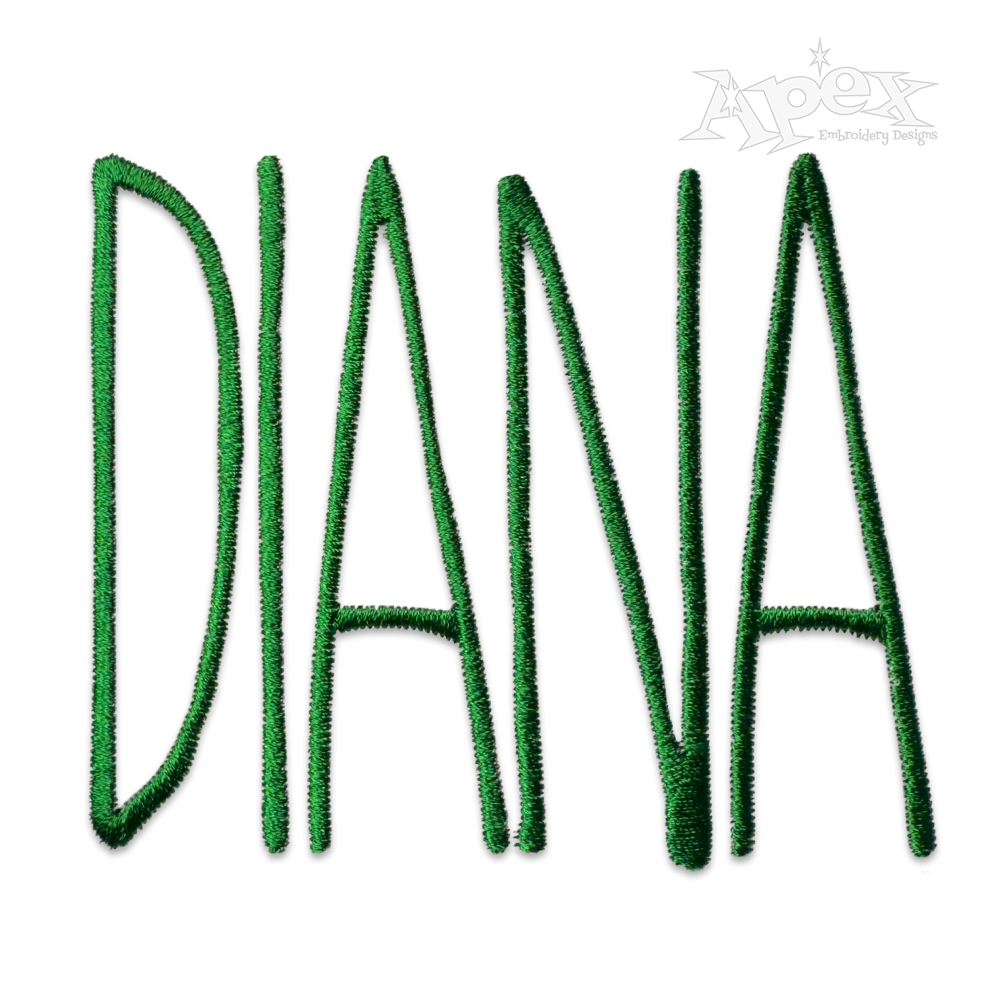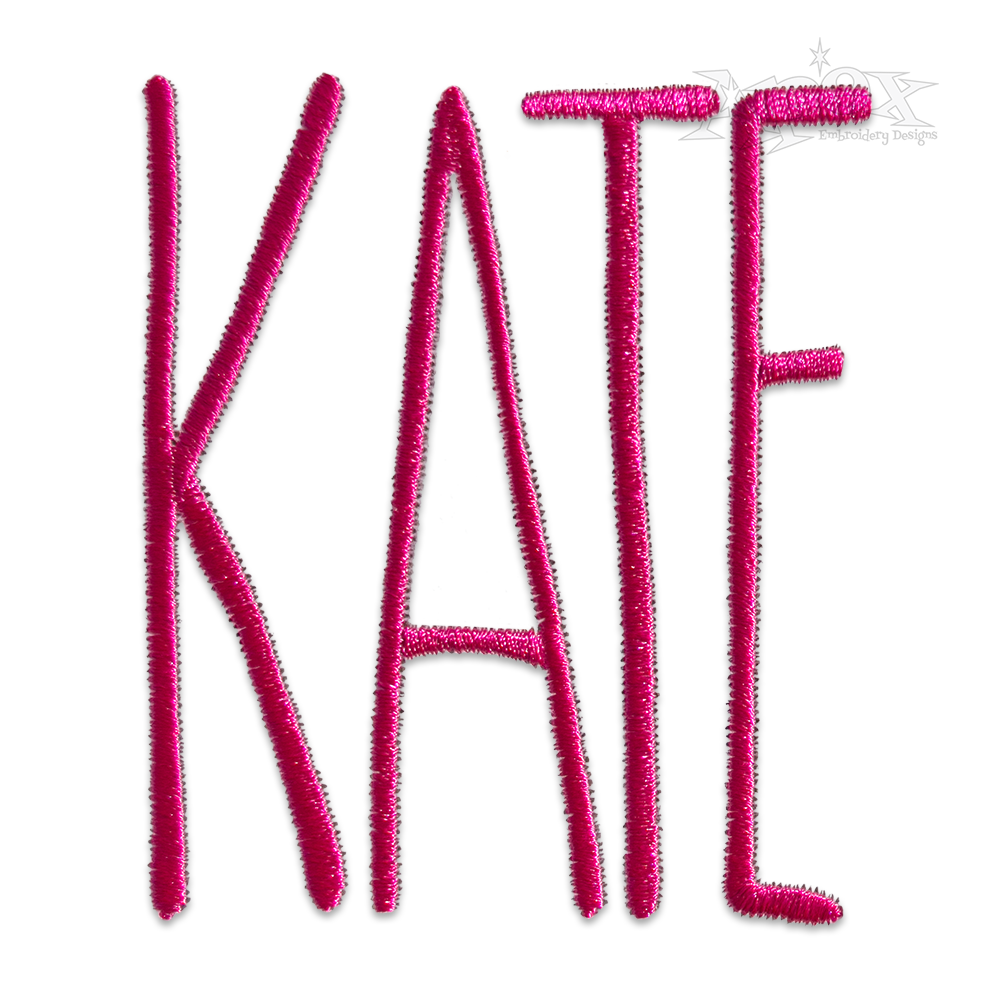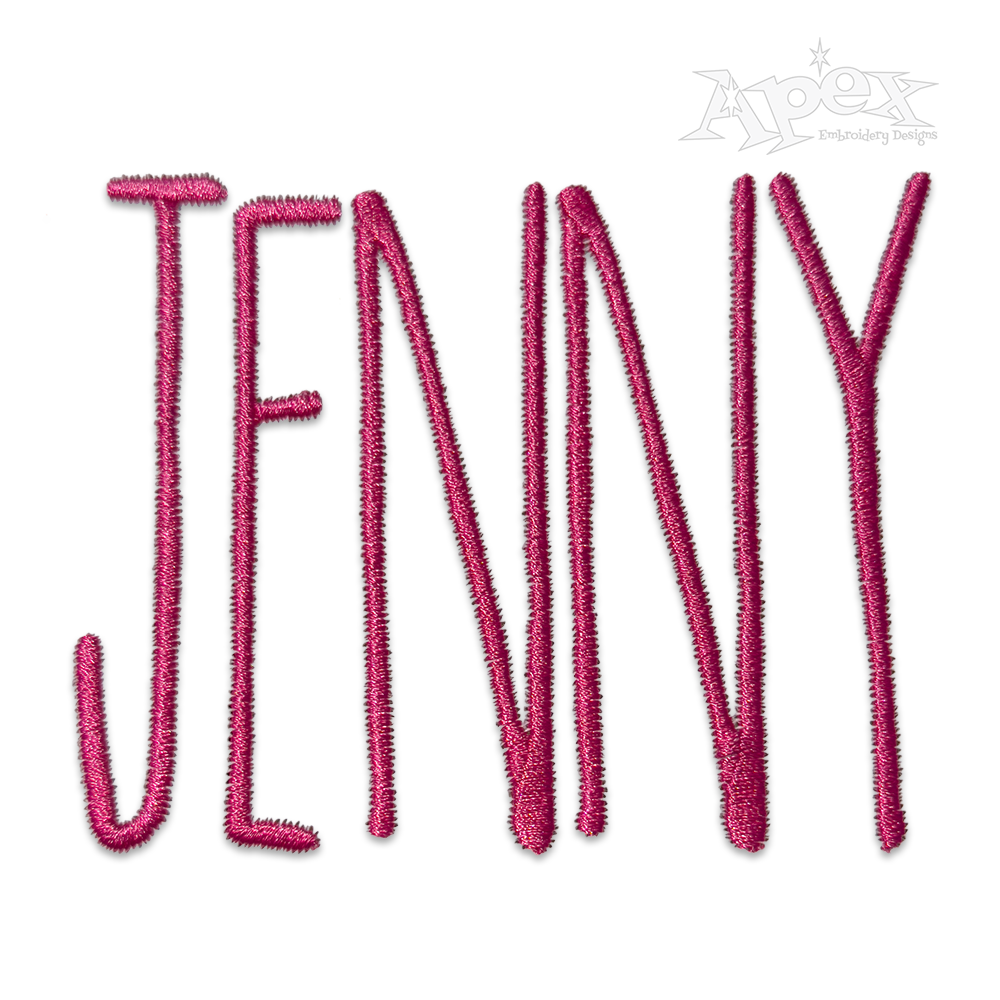
Eli Skinny Embroidery Font
Born from an appreciation for architectural minimalism and modern editorial typography, the Eli Skinny Embroidery Font brings a breath of airy sophistication to machine needlework. We designed this typeface to offer an antidote to heavy, dense lettering?drawing each character with elongated vertical stems and refined, slender proportions that elevate every stitch. Whether rendering a contemporary single-letter monogram or spelling out a cherished name, its whisper-thin satin strokes impart an effortlessly chic, bespoke aesthetic that feels right at home in modern boutique studios and heirloom workrooms alike.
Project Ideas for Eli Skinny Embroidery Font
Thanks to its clean, slender geometry, Eli Skinny adapts seamlessly across casual chic textiles and refined formal goods:
- Luxury Table Linens & Cocktail Napkins: Embroider crisp, minimalist single initials on hemstitched Belgian linen for an understated dinner table setting.
- Bridal Party Keepsakes: Add elongated, graceful names across the backs of silk bridal robes or monogrammed linen cosmetic travel bags.
- Bespoke Resort Wear & Apparel: Embroider lightweight summer button-downs, pocket crests, and sun hats with an understated, coastal elegance.
- Heirloom Nursery Essentials: Stitch timeless, modern names onto organic cotton waffle blankets, swaddles, and keepsake heirloom pillows.
- Personalized Canvas Totes: Create high-fashion, boutique-style carryalls with tall, striking center initials.
The tall verticality of Eli Skinny opens up creative layout possibilities beyond traditional monograms:
- Corner Diagonal: Angle a 2-inch initial across the corner of cocktail napkins or linen table runners to let the elongated letterform frame the corner hem beautifully.
- Tailored Cuff & Collar Placement: Utilize the 1-inch size along the cuff line of a classic dress shirt or tucked subtly under a collar point for quiet luxury customization.
- Center Chest Alignment: Position a 2- or 3-inch initial dead center on pocketless tees, sweatshirts, or knitwear for a clean, Scandinavian-inspired look.
- Vertical Border Spines: Run full names or words vertically down the placket of a robe or along the side seam of an oversized tote for modern editorial flair.
Eli Skinny Embroidery Font Craft & Letterform Details
Digitizing a skinny satin alphabet requires an exceptional level of technical balance. Without generous widths to hide behind, every entry point, underlay path, and travel stitch must be meticulously planned. We built Eli Skinny with custom-tailored centerline underlay to anchor the narrow columns gently to the base fabric, providing pristine stability without adding unwanted bulk or causing push-pull distortion.
Each corner transition and gentle curve has been manually adjusted to maintain consistent stitch density, ensuring that delicate strokes do not sink into fibrous weaves or leave ragged satin edges. The result is a smooth, gleaming stitch path that glides through the needle, yielding crisp, modern letterforms with exceptional thread sheen and structural integrity from the first letter to the last.